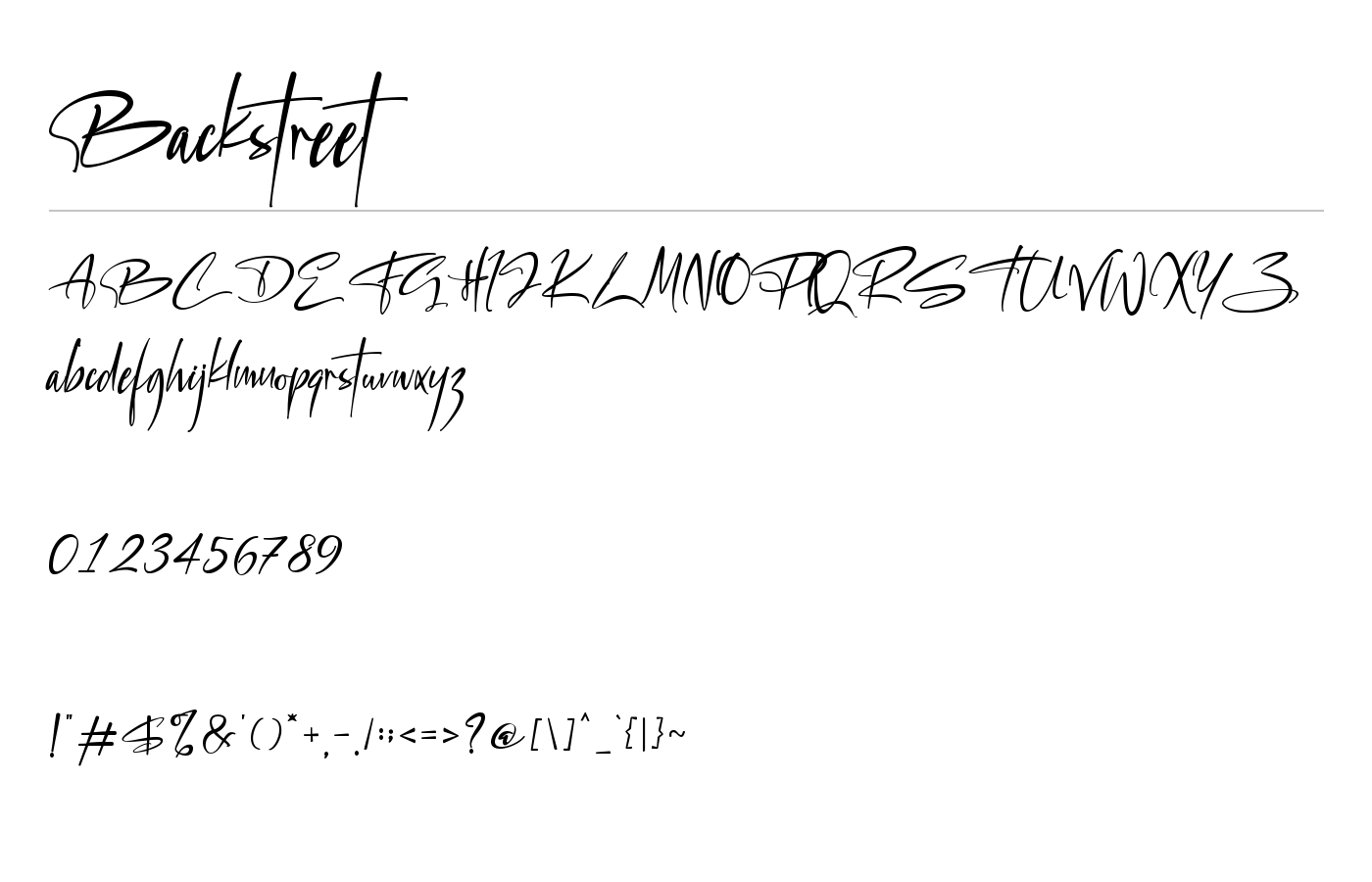
Backstreet is an elegant, handwritten script font characterized by its tall, slender letterforms and lively, flowing strokes that give a natural, personal touch. With its sharp, dynamic lines and casual sophistication, it works beautifully for stylish branding, fashion headlines, and creative projects that want to convey a modern, artistic vibe. This font lends a unique and expressive flair, perfect for making a memorable impression in logos, packaging, and editorial designs.
Backstreet Font
About Backstreet Font